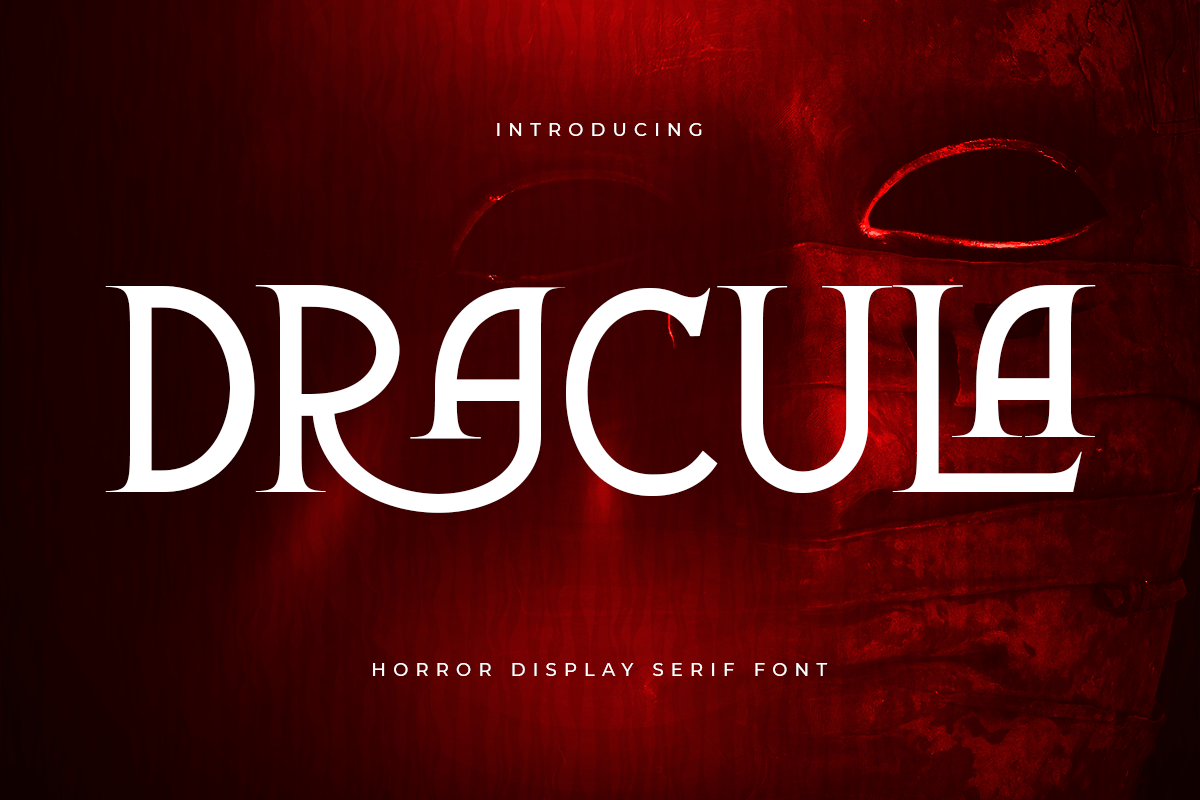
Dracula
-Horror Display Serif Font
Dracula
Dracula is a horror display font that was designed with branding needs in mind. It is perfect for any business that wants to add a bit of horror and suspense to their visual branding. This font is great for logos, headings, and any other text that needs to be displayed in a scary or suspenseful manner. If you're looking for a font that will make your business stand out from the rest, then Dracula is the font for you!